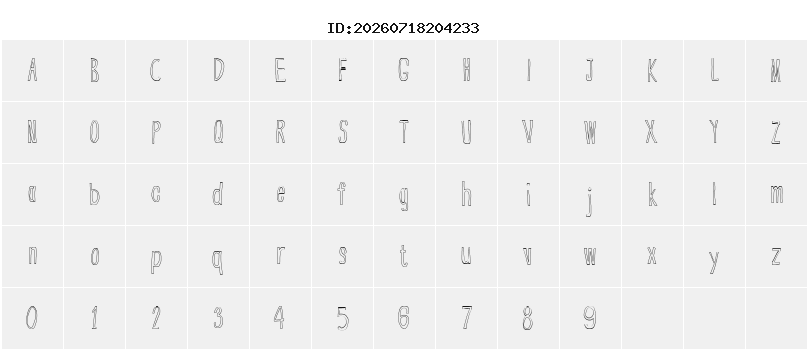
CranberryBog Preview
About CranberryBog.ttf
CranberryBog.ttf is a modern, elegant sans-serif font designed for ultimate readability and visual harmony. Perfect for branding, headlines, web design, and print materials.